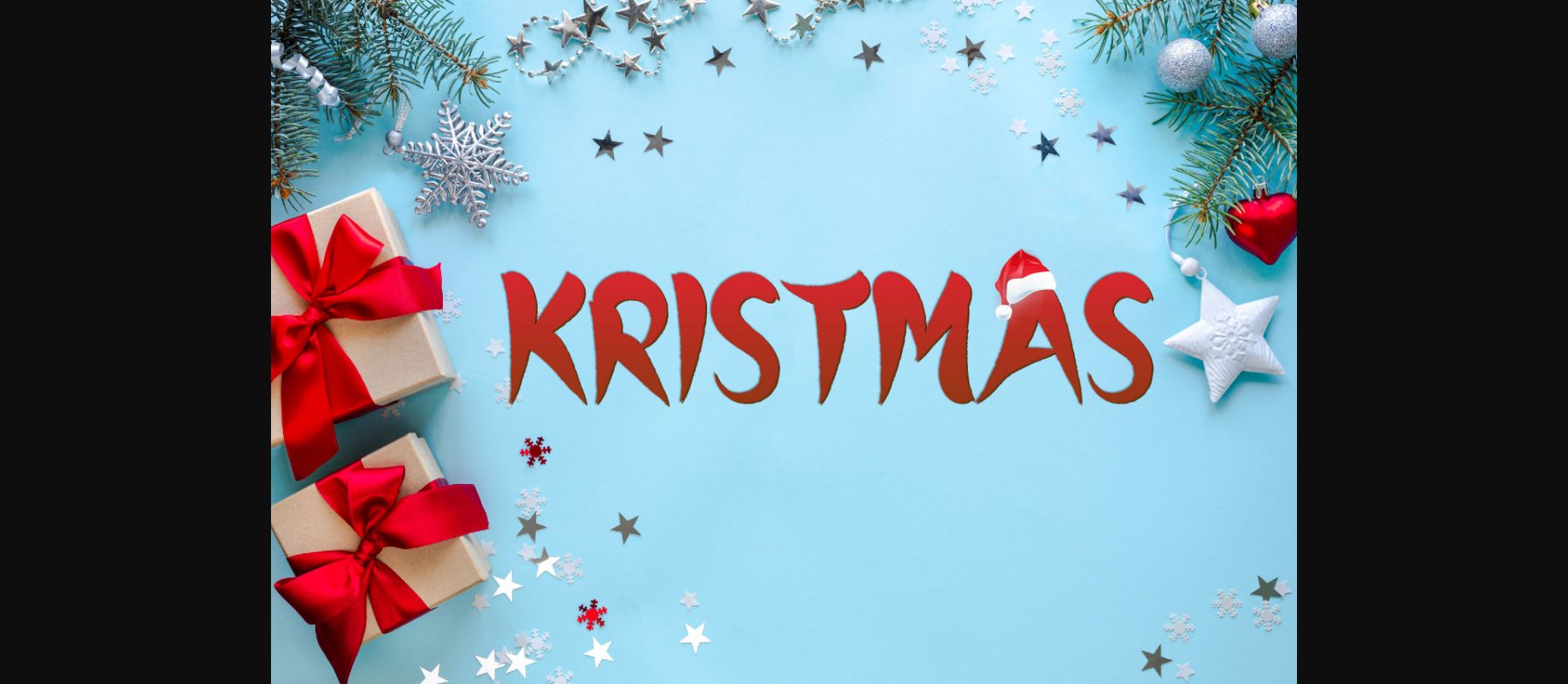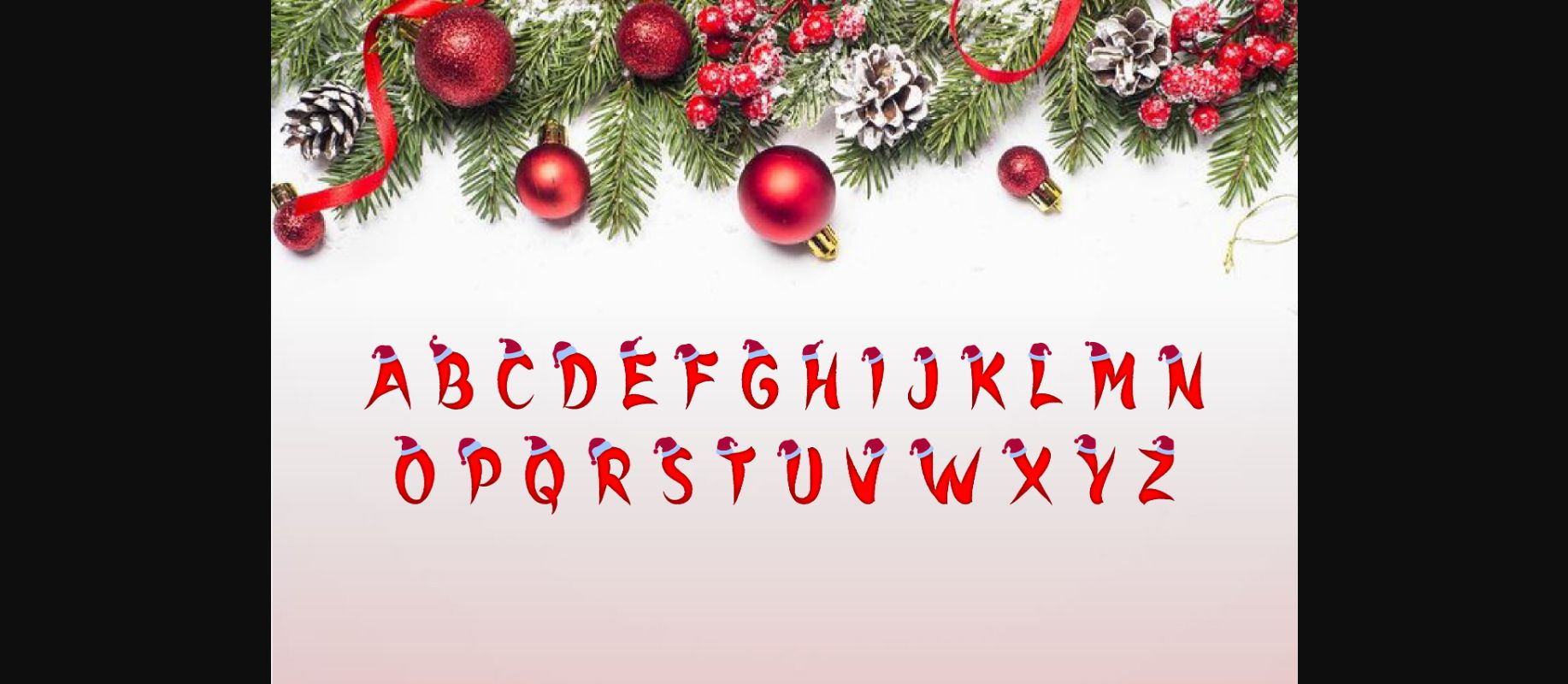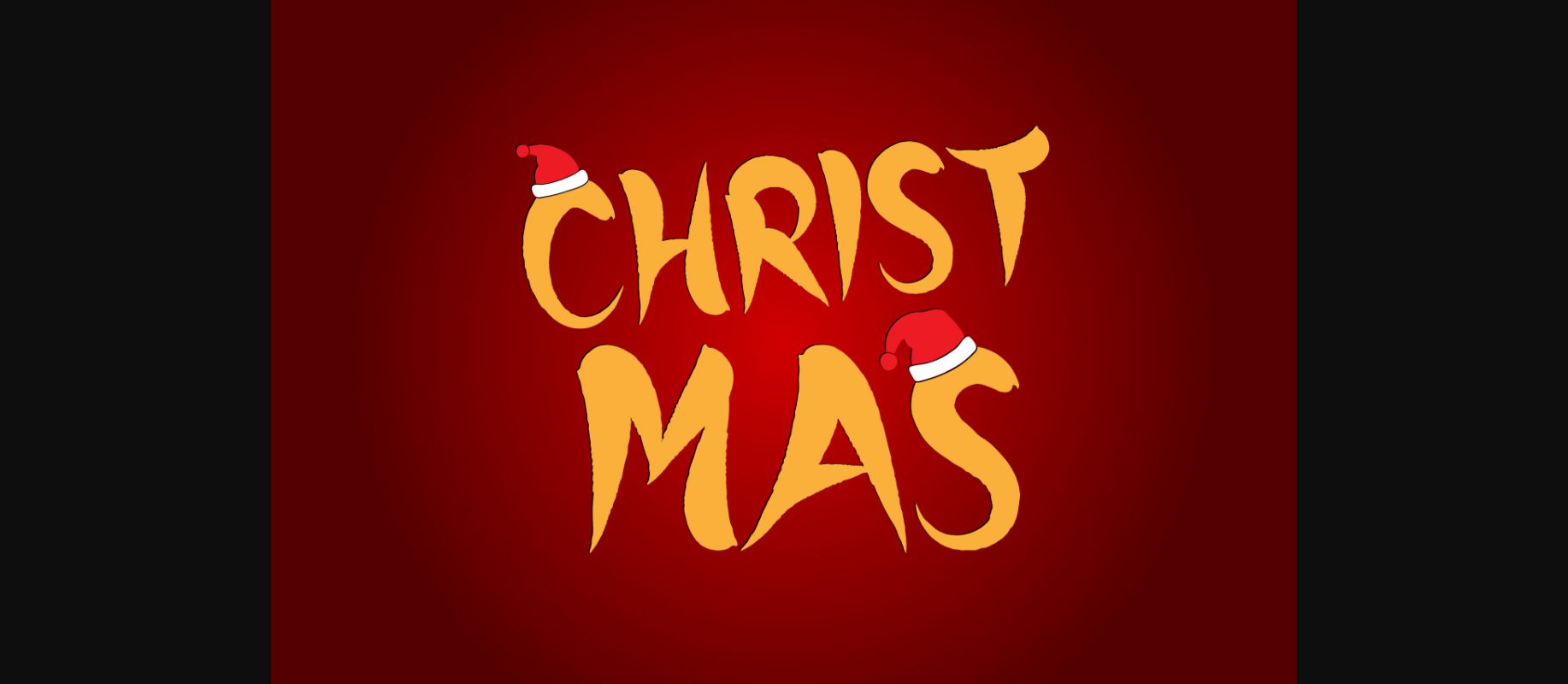
About Kristmas Font
Kristmas, crafted by Gothic, is a chic, decorative font that radiates modern elegance. Reminiscent of the joyful ‘Merry Christmas’ style, it’s ideal for a wide array of designs, from movie titles to fashion items like T-shirts and hoodies. Comprising 96 glyphs and 95 characters, Kristmas offers versatility and flair, making it an invaluable asset for diverse creative projects.